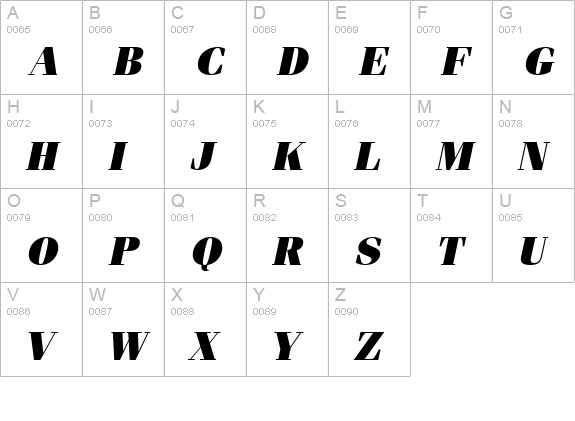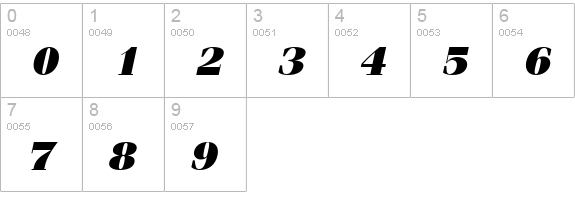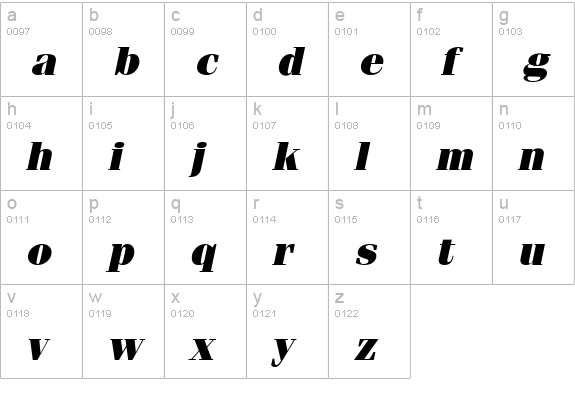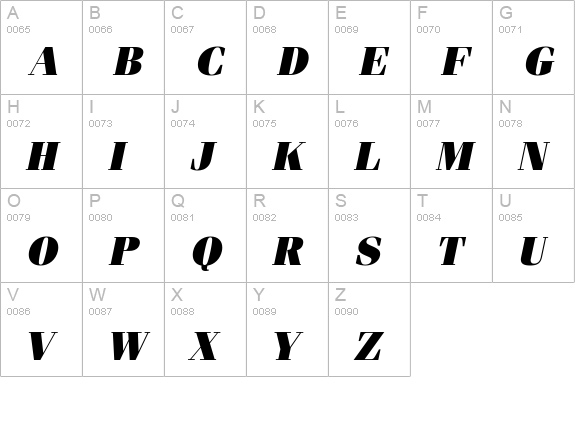
Compendium Black SSi Black Italic is a maximum-weight, dramatic, italic variant in the Compendium typeface family \xE2\x80\x94 well suited to maximum-impact headlines, posters, and packaging.
Compendium Black SSi Black Italic font is a bold and elegant typeface that exudes sophistication and modernity. Its sleek design and sharp angles make it perfect for creating eye-catching headlines or adding a touch of style to any project. This font is perfect for branding, editorial design, and any creative project that requires a bold statement. The italicized version adds a dynamic flair, making text stand out and capture attention. And the best part? Compendium Black SSi Black Italic font is available for free download at FontsMarket.com. Now you can elevate your designs with this premium font without breaking the bank. Don't miss out on this fantastic opportunity to enhance your creative projects with this stylish and versatile typeface. Download it today and let your creativity shine!